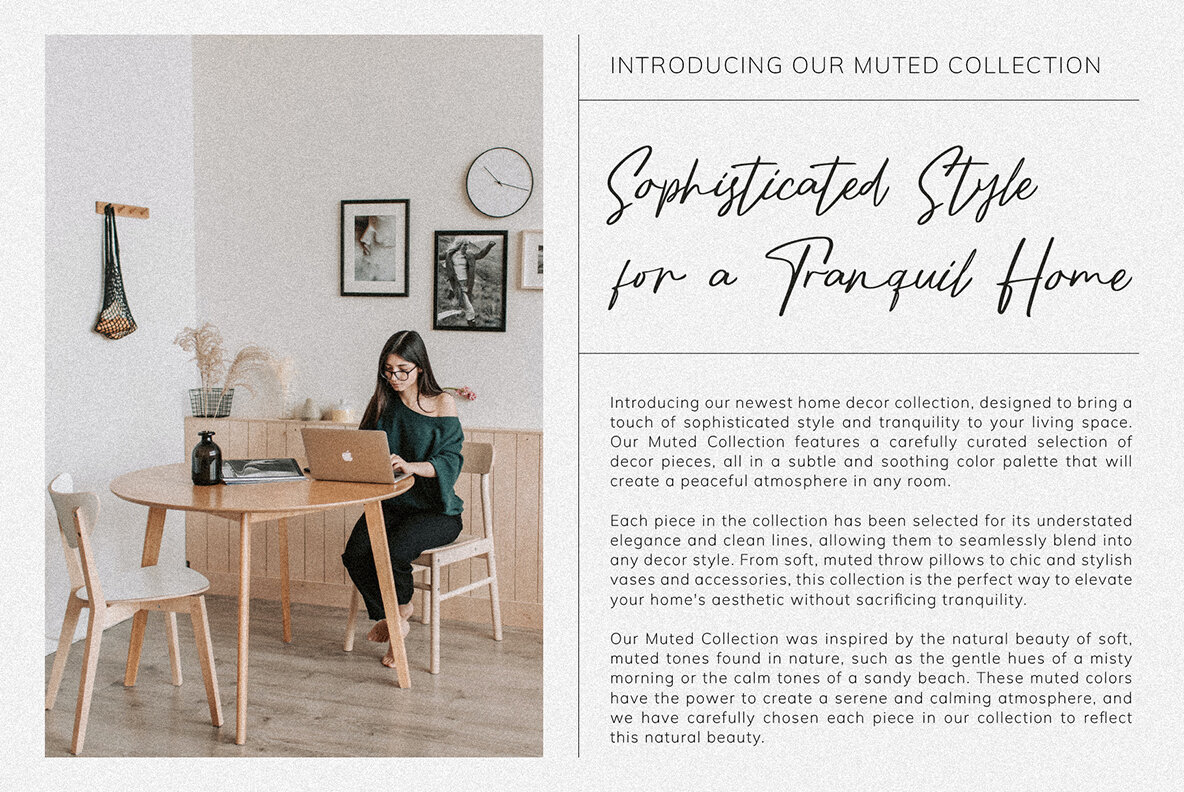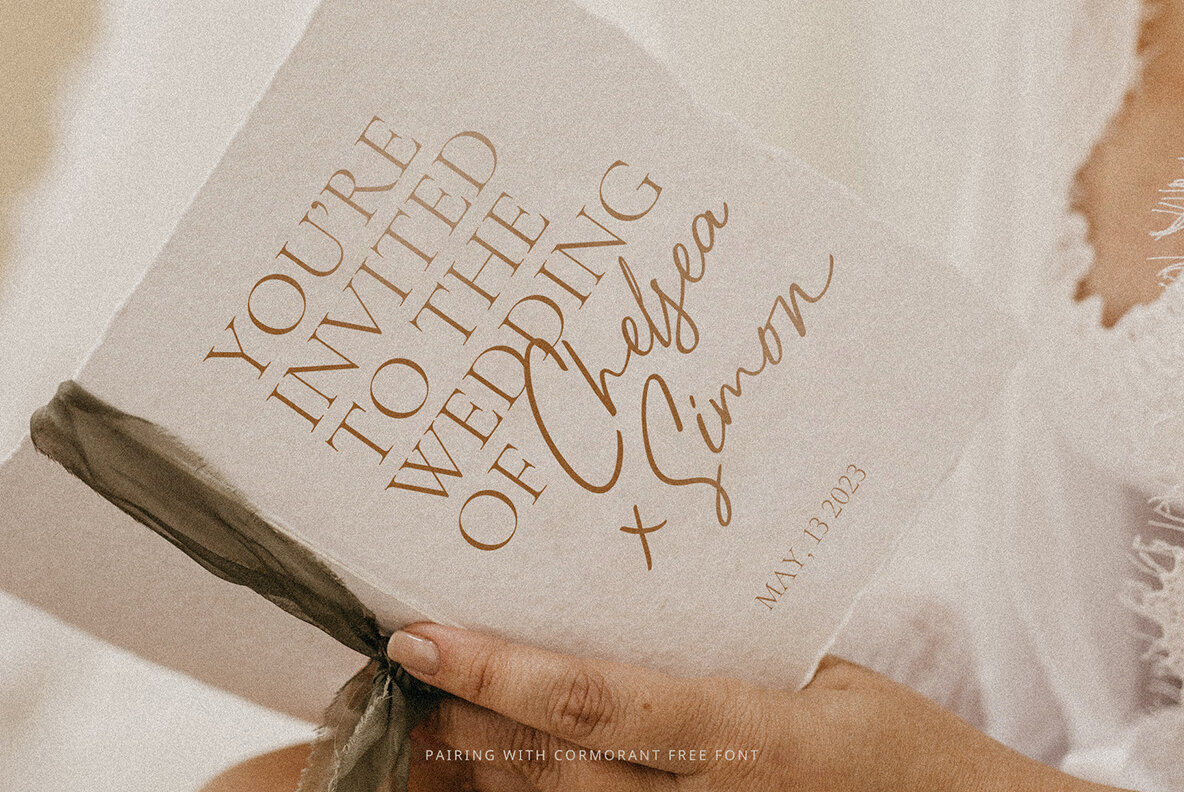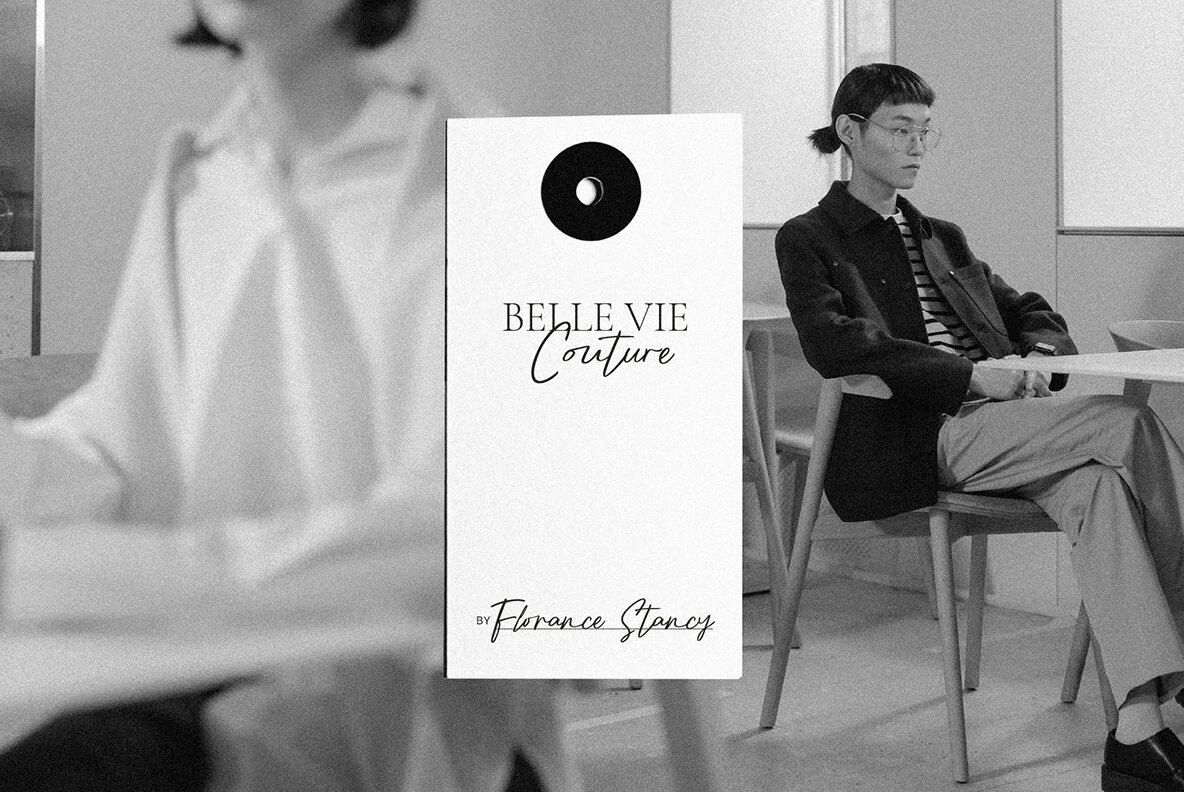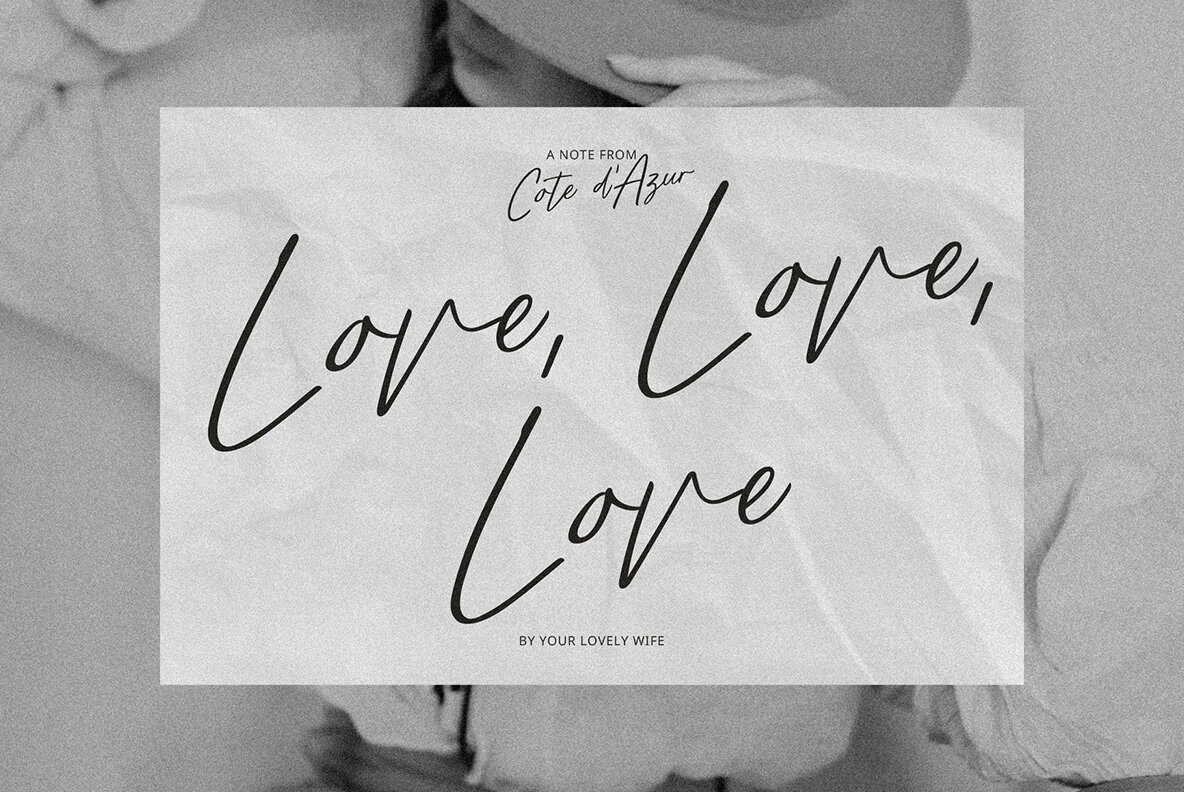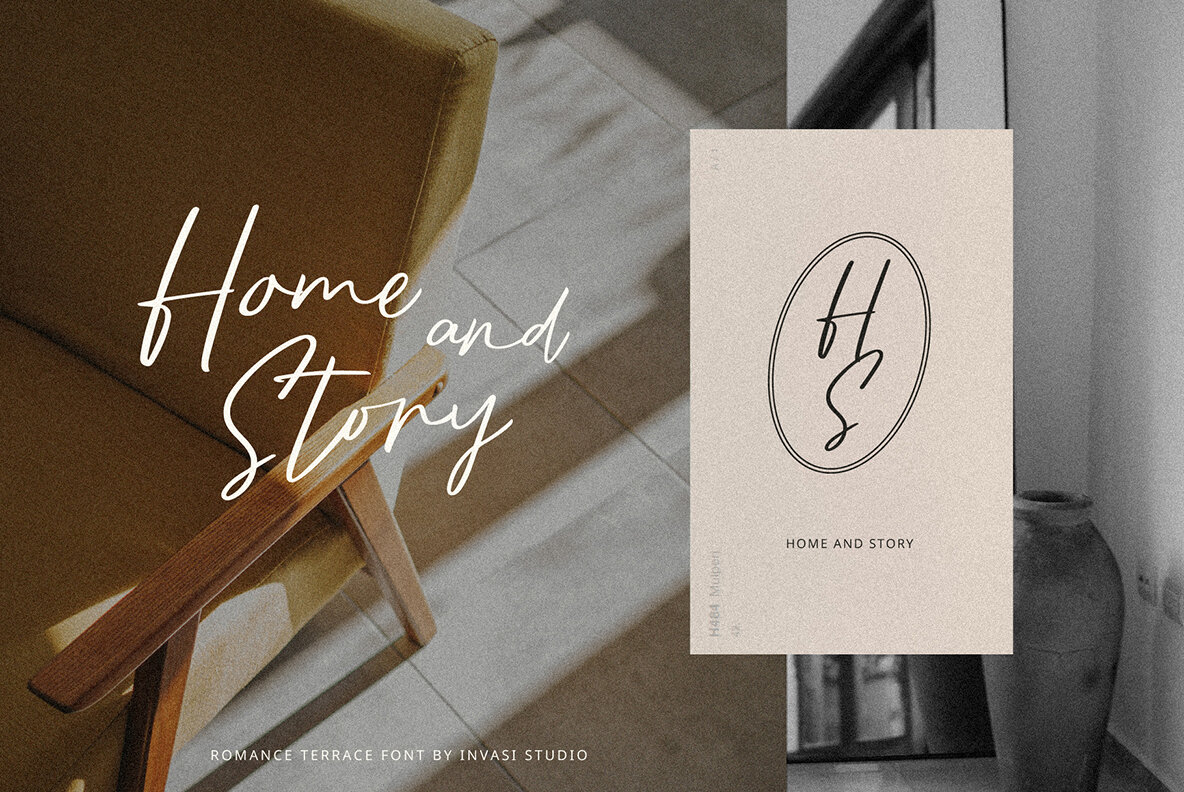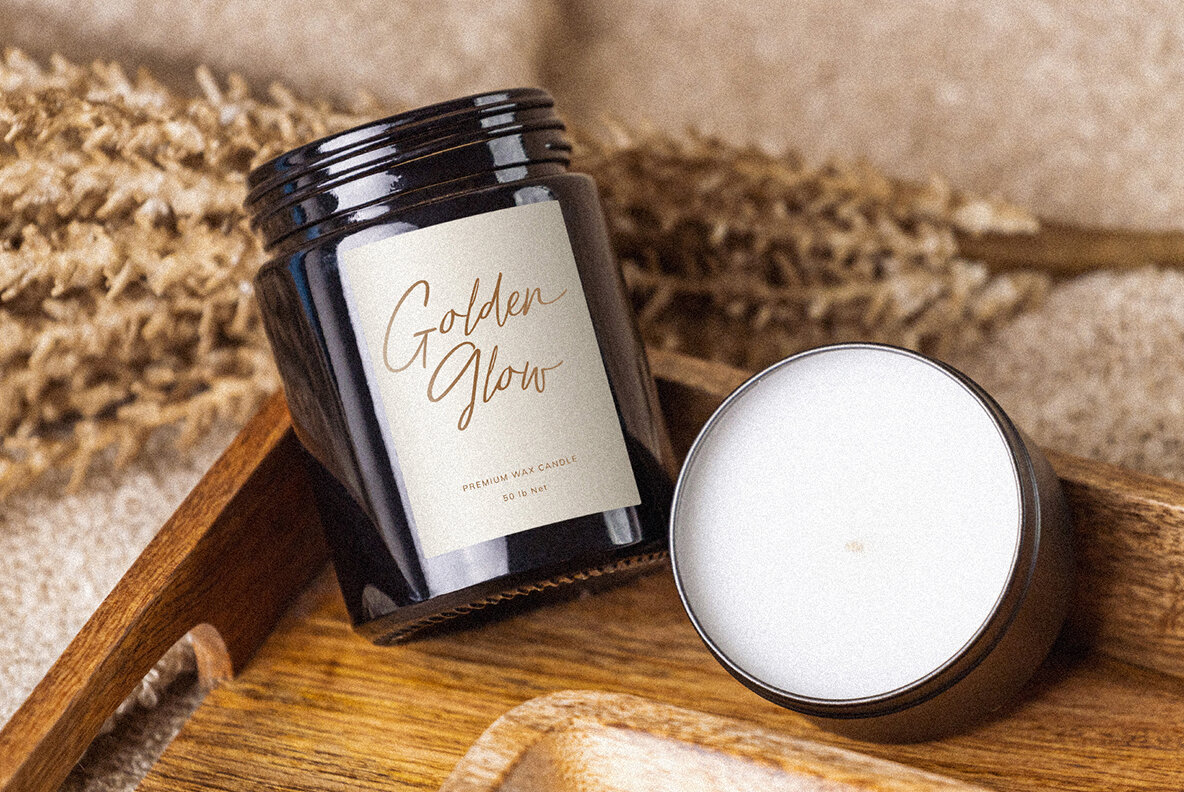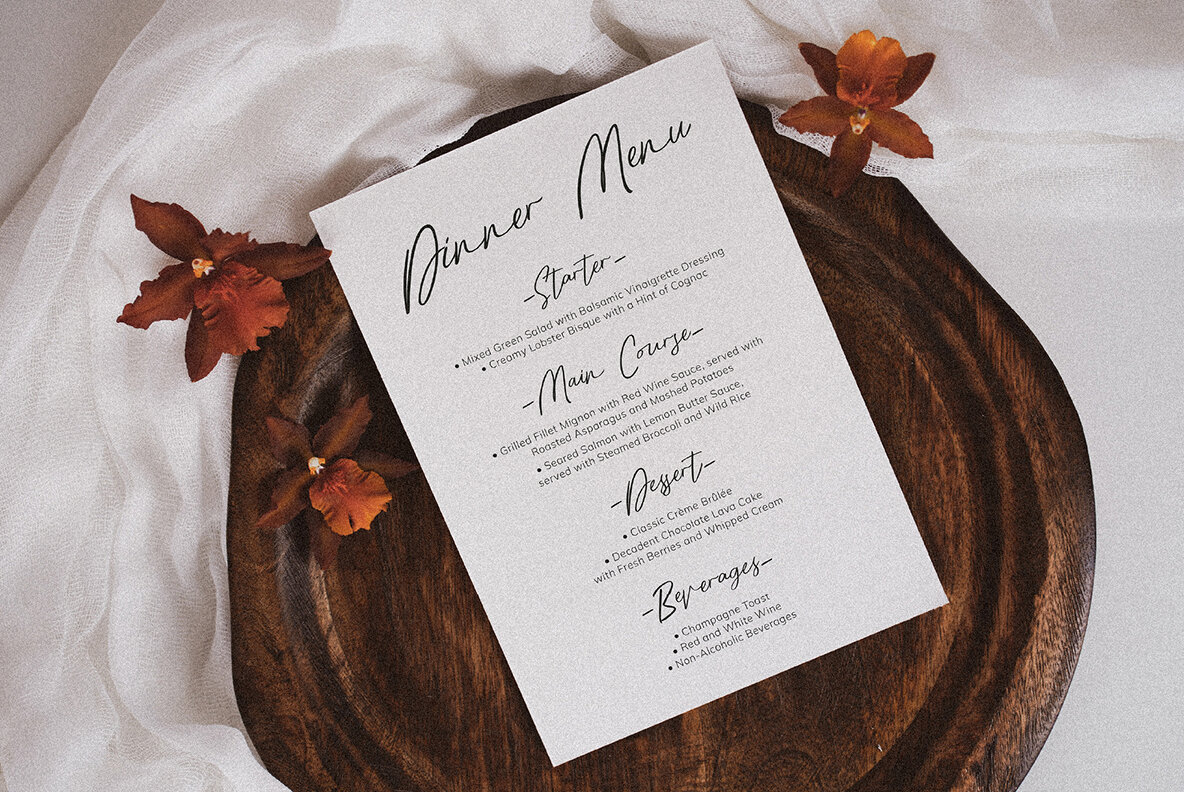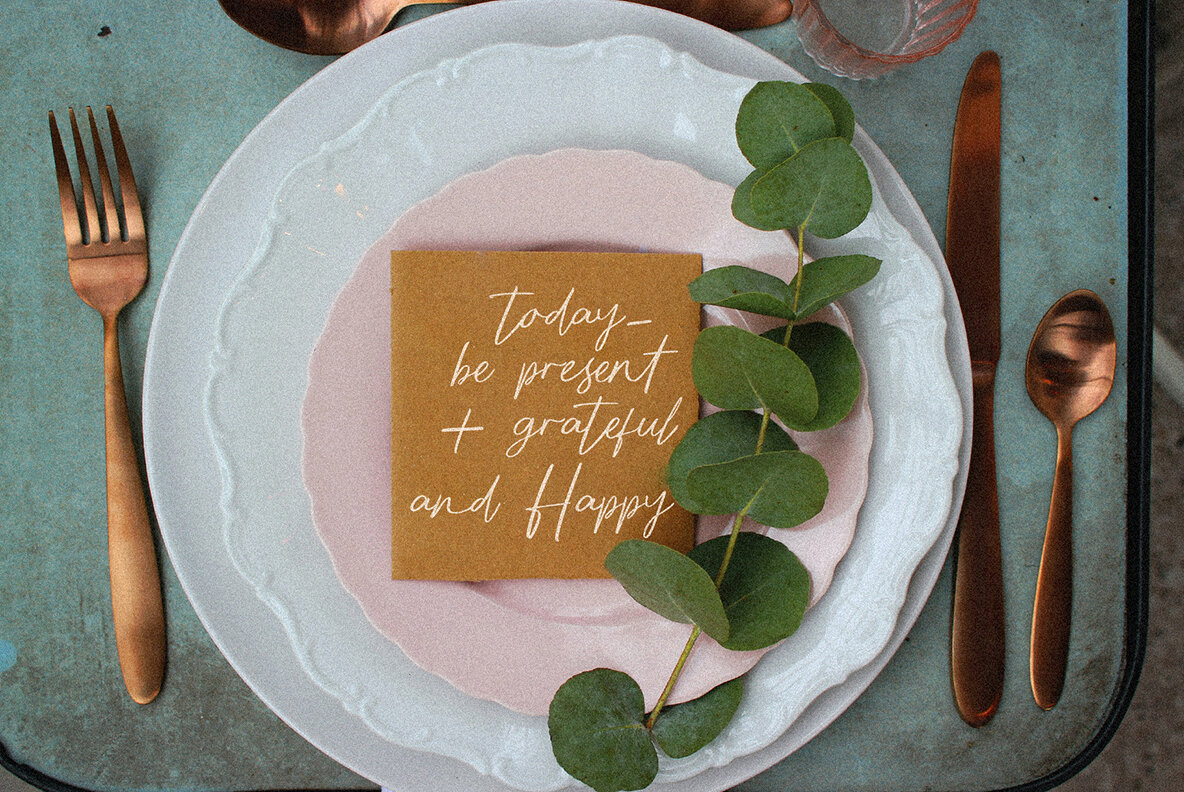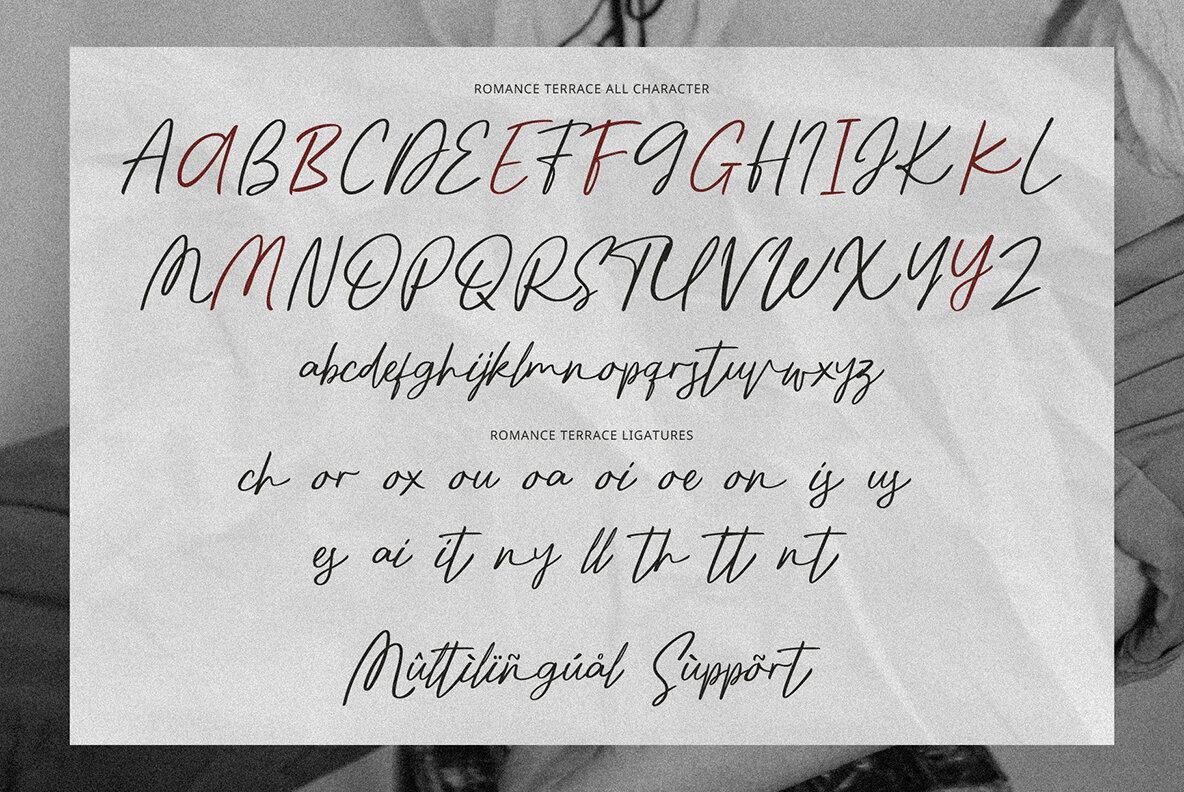
Romance Terrace Font
Romance Terrace Script
Romance Terrace is the perfect font for adding a touch of luxury and elegance to any design project. Its stylish script brush style exudes sophistication and class, making it ideal for use in branding, wedding invitations, packaging, menus, and more. With multilingual support and a range of alternates, this font is versatile and adaptable to any project.
Whether you're designing for a luxury high-end brand or looking to add a touch of glamour to your personal project, Romance Terrace is a perfect choice. Its timeless and classic design is sure to impress, and its range of features makes it easy to use and customize.